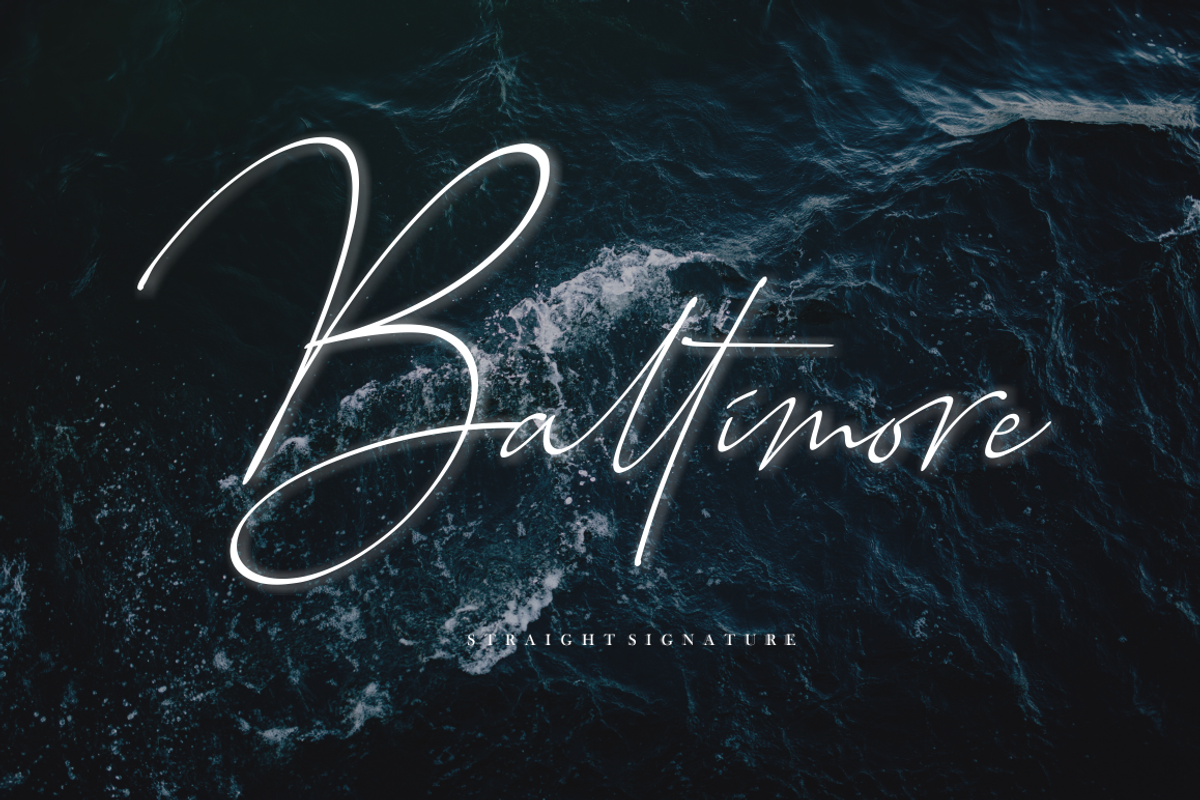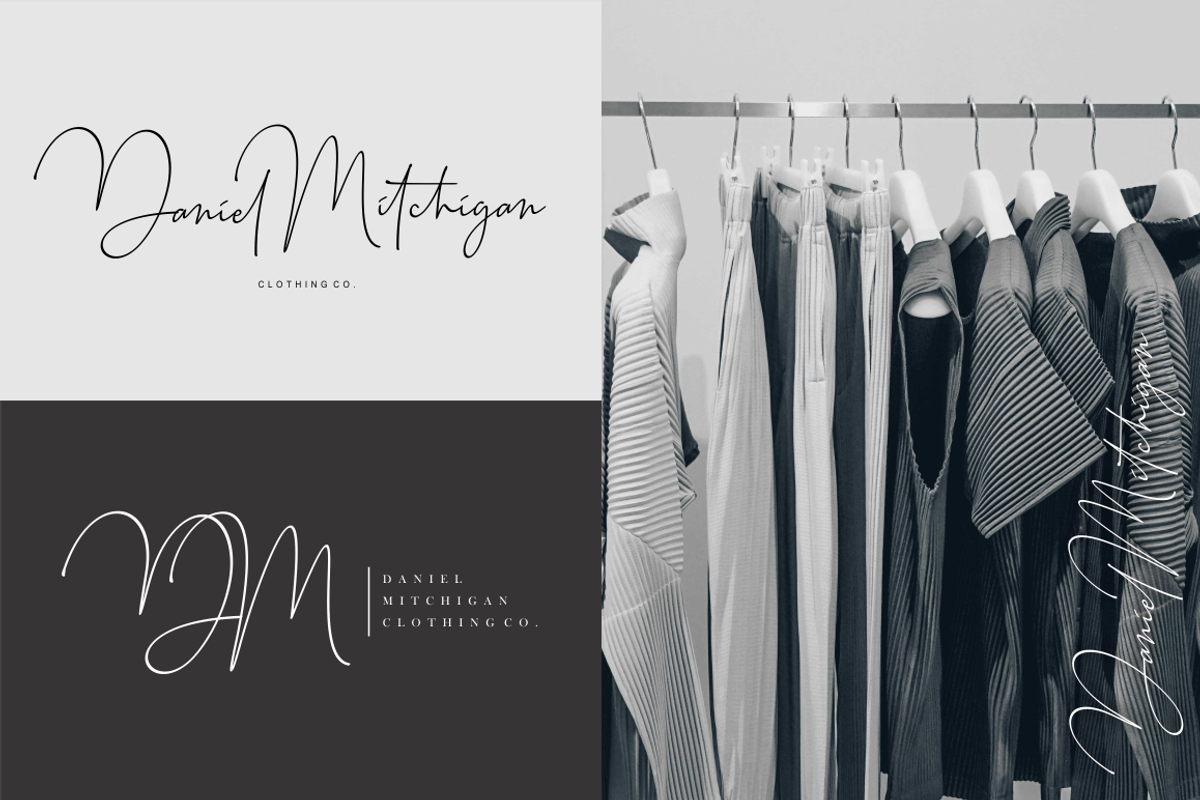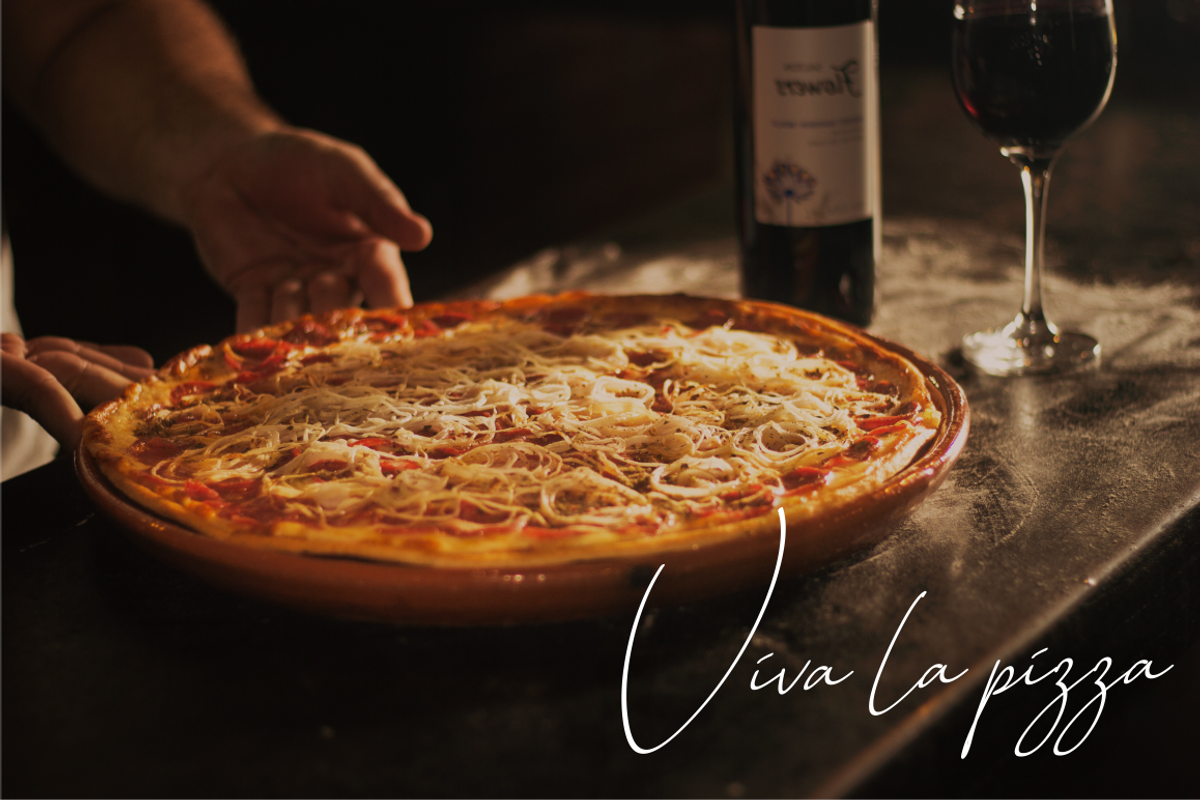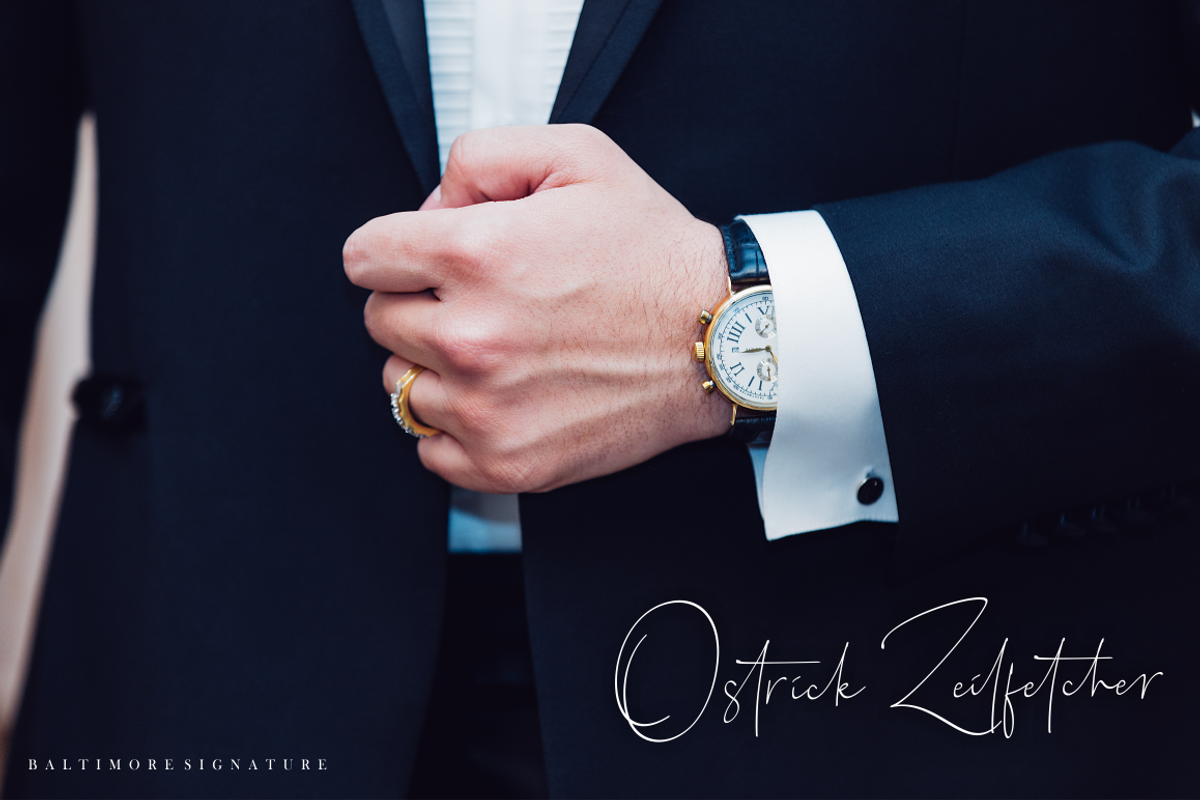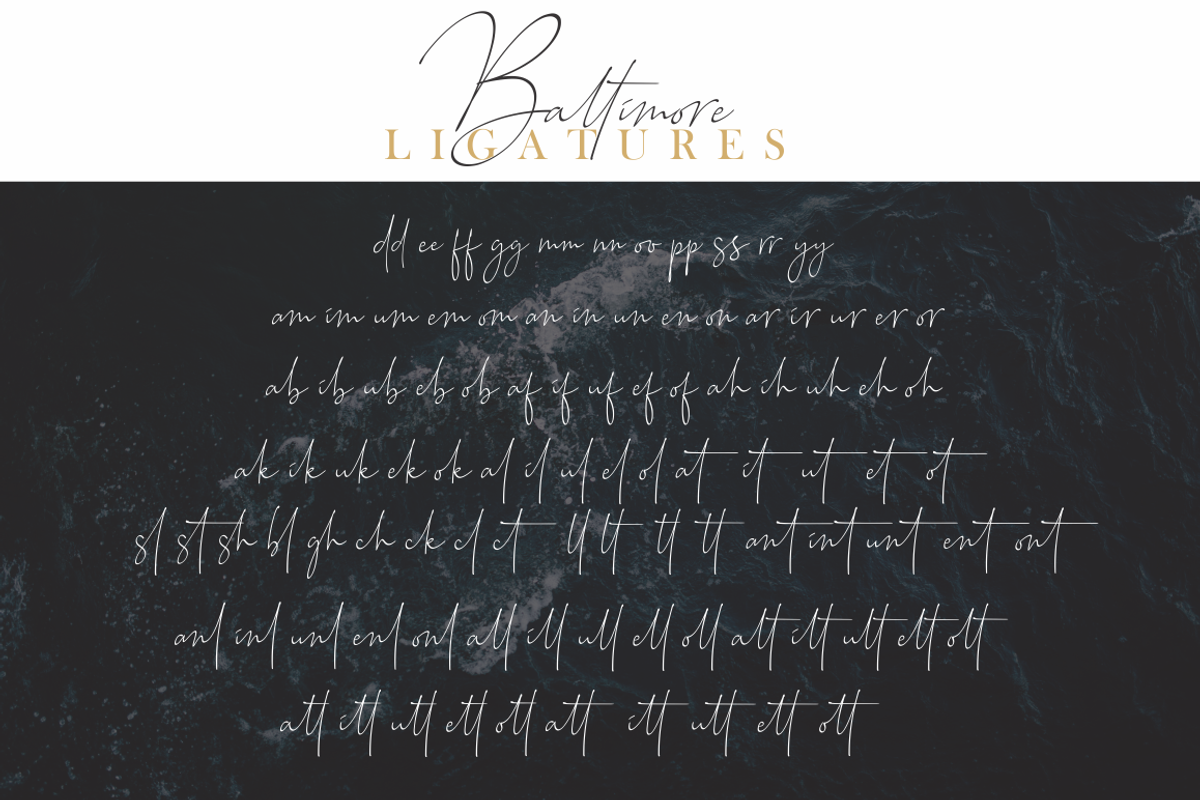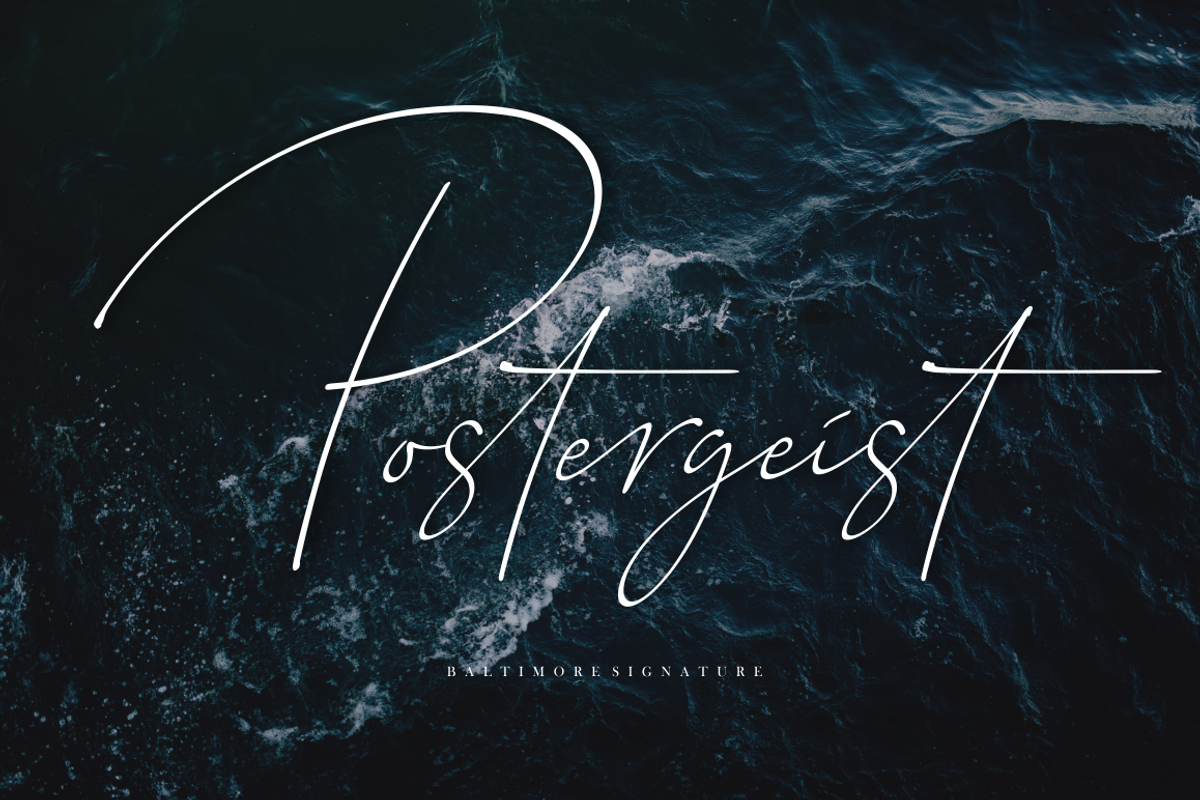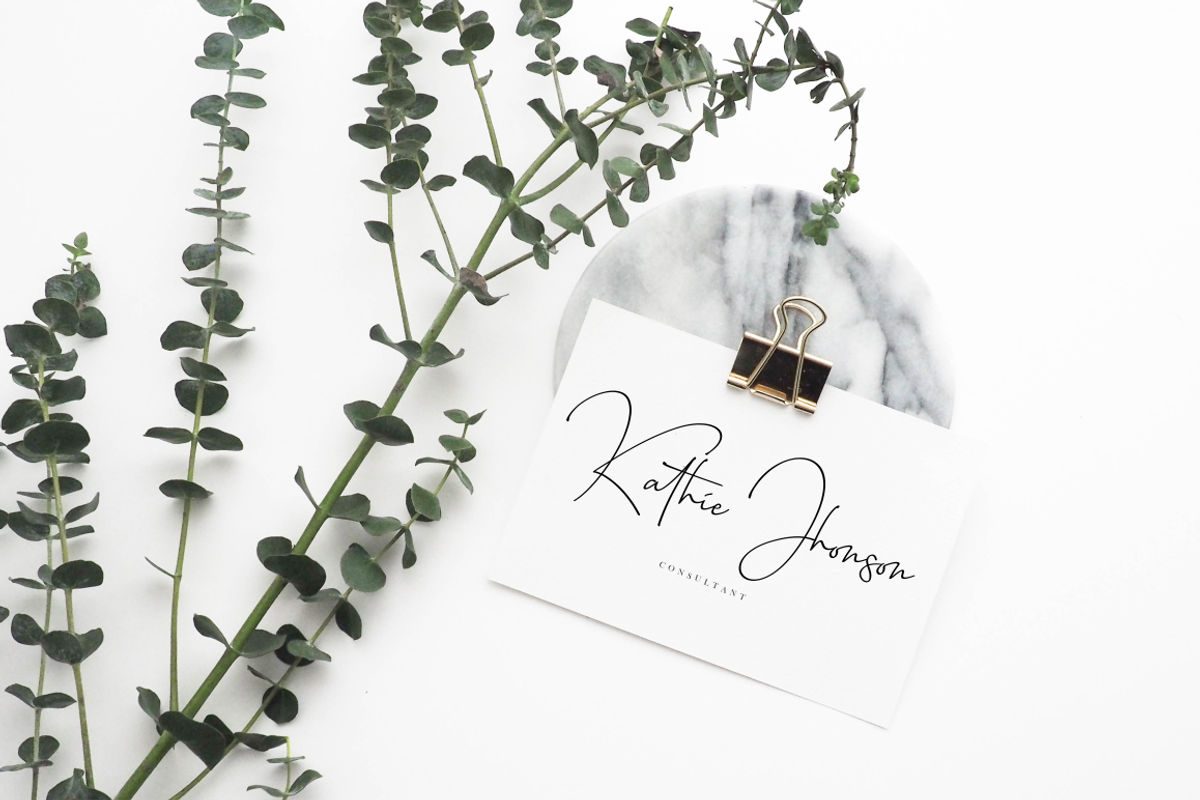
Baltimore - 4 Font Family
Introducing Baltimore // Straight Signature Font ! Baltimore is a new modern signature with elegant lines make this font perfect for your personal branding and any awesome project, such as : logos, invitations, stationery, wedding designs, social media posts, advertisements, product packaging, product designs, labels, photography, watermarks, special events and much more !